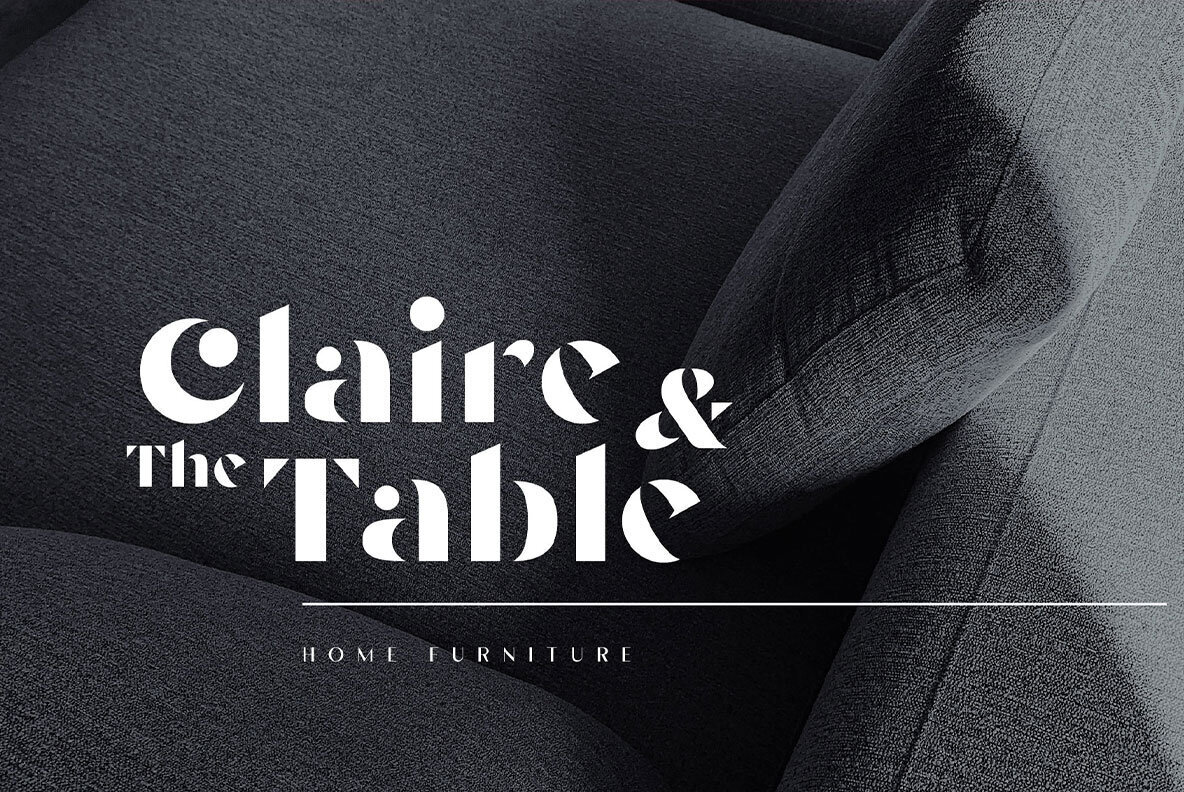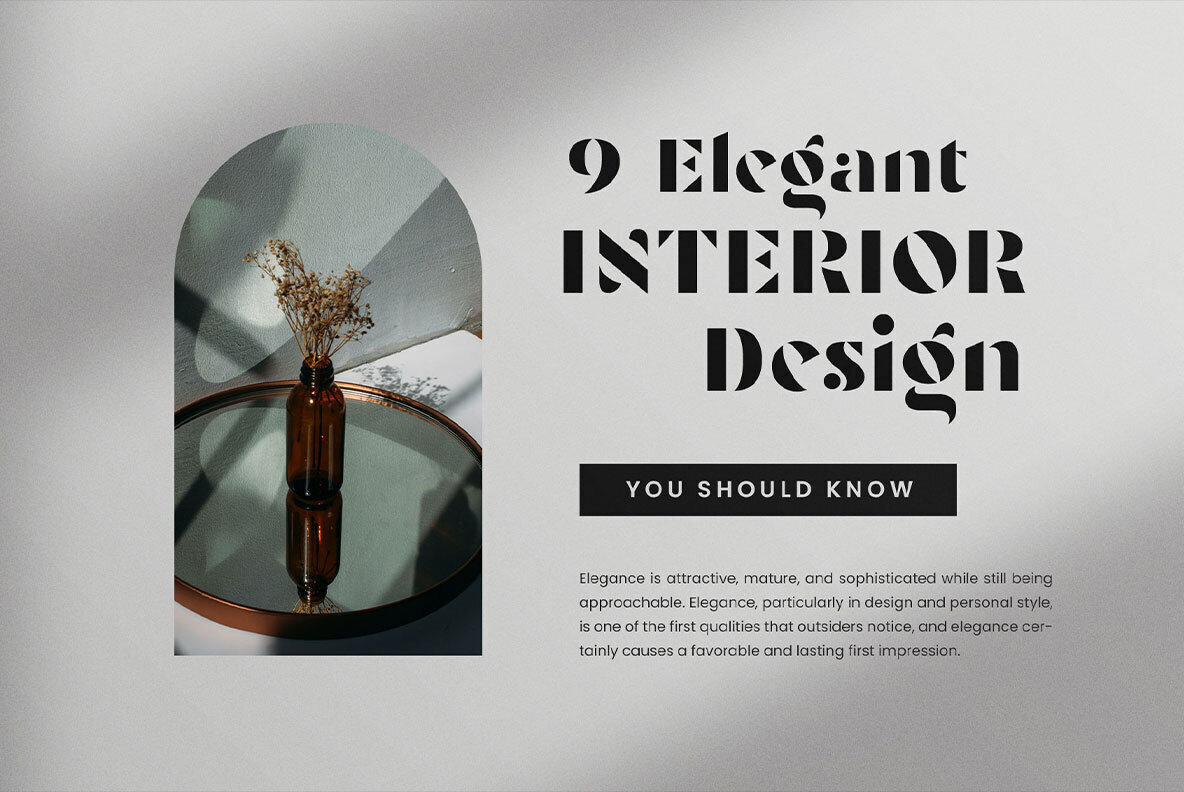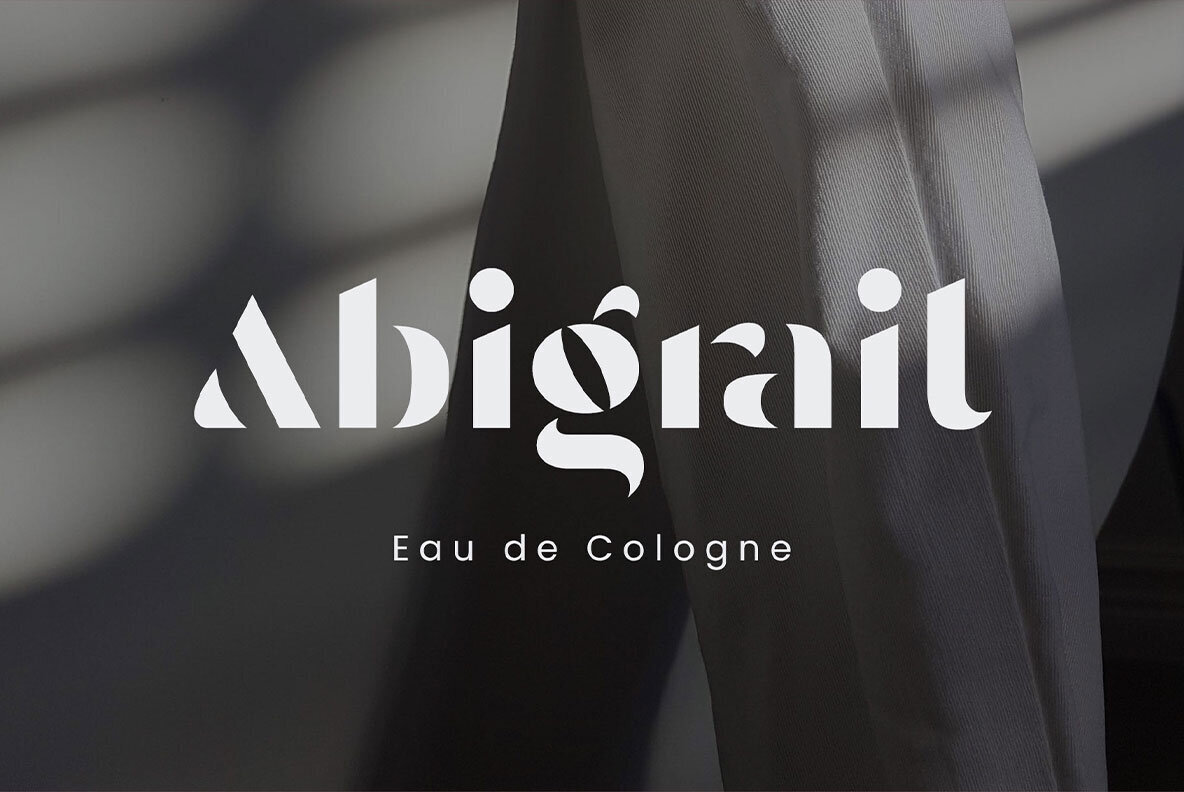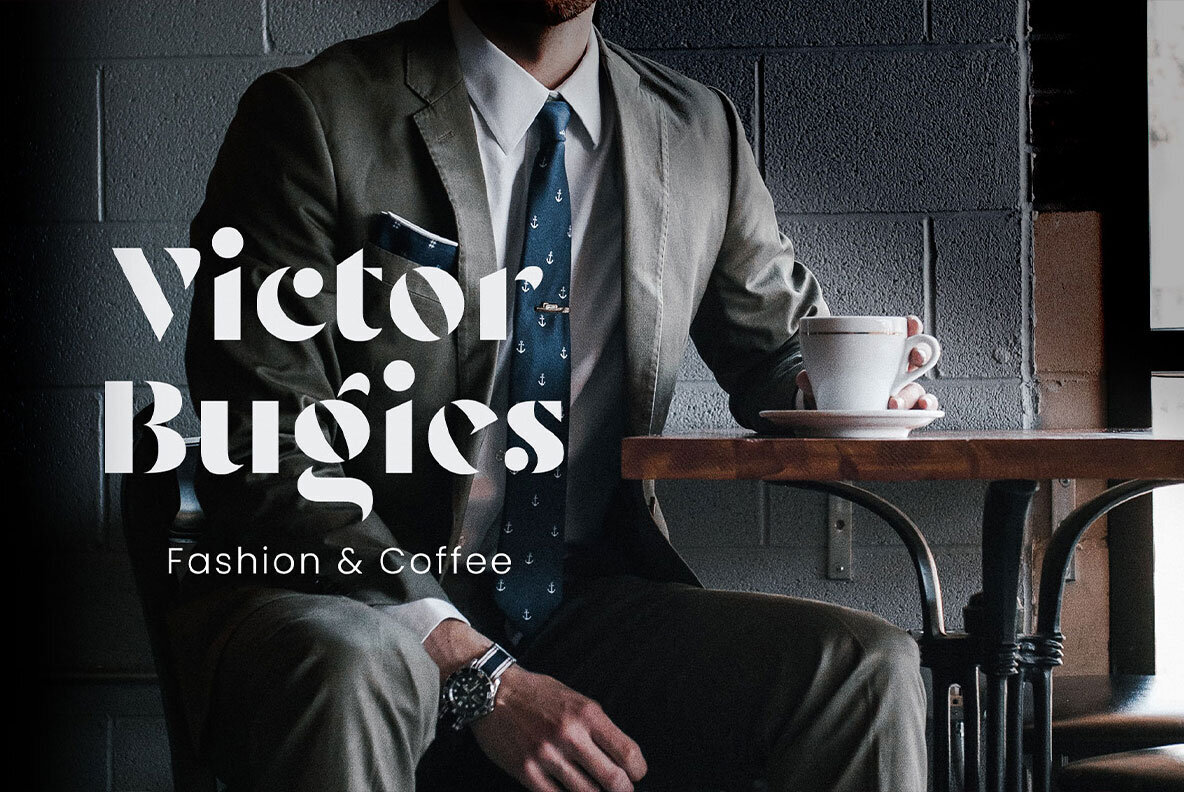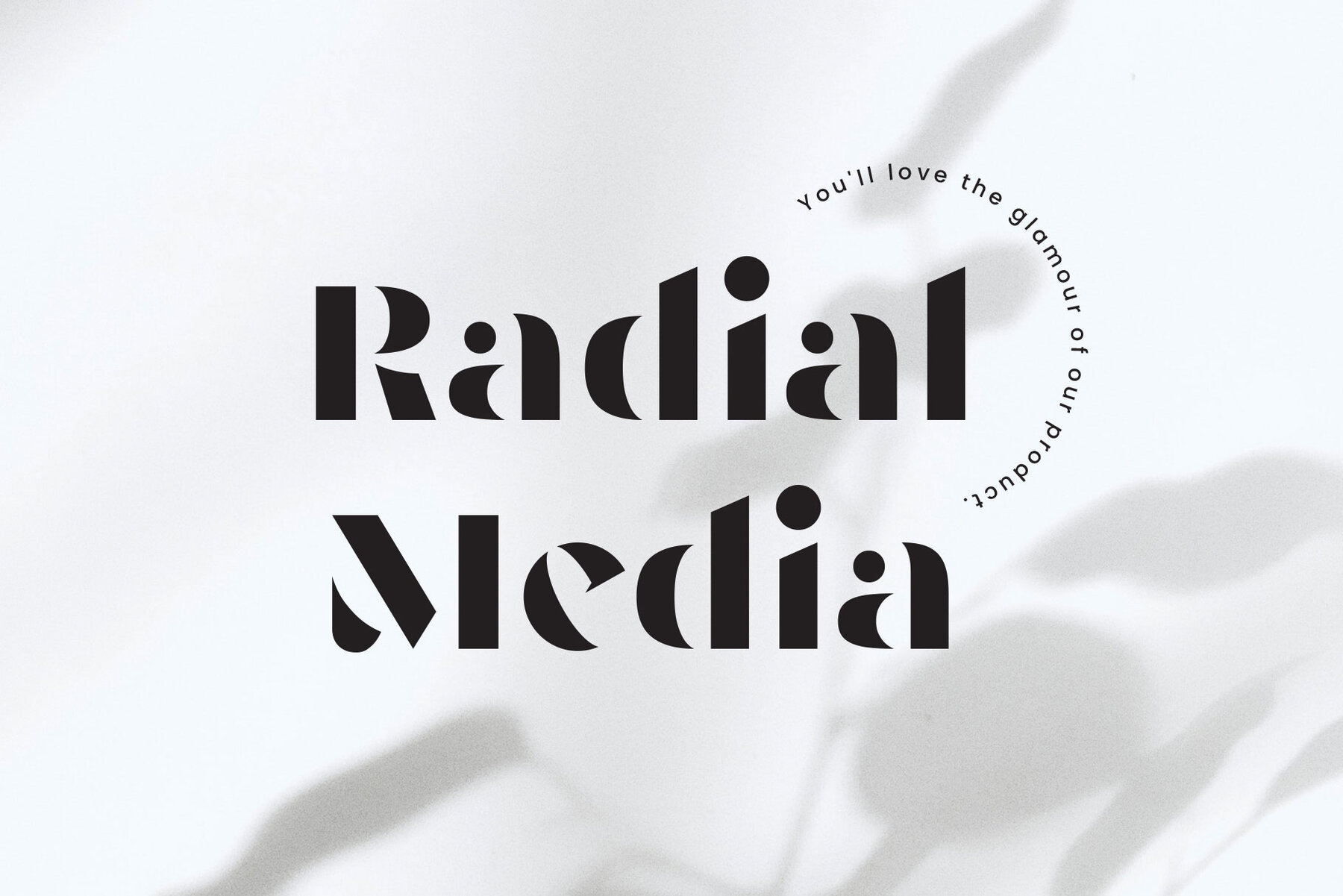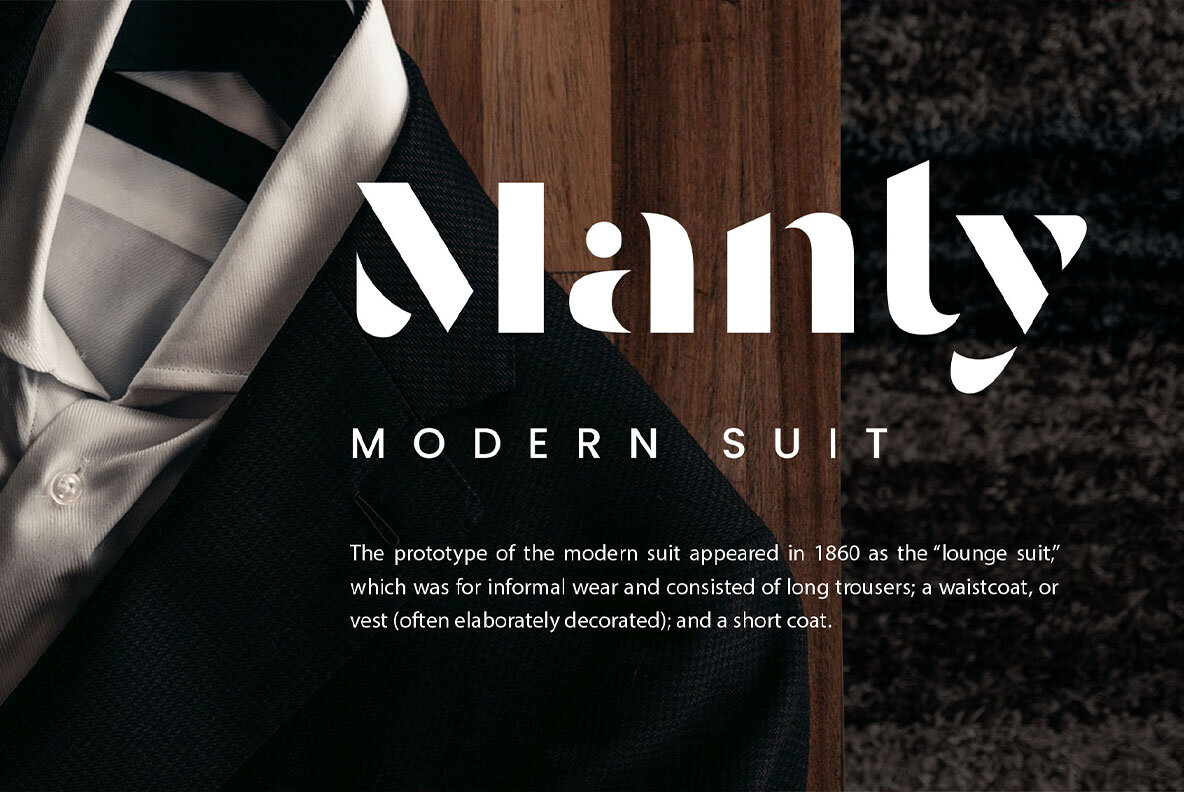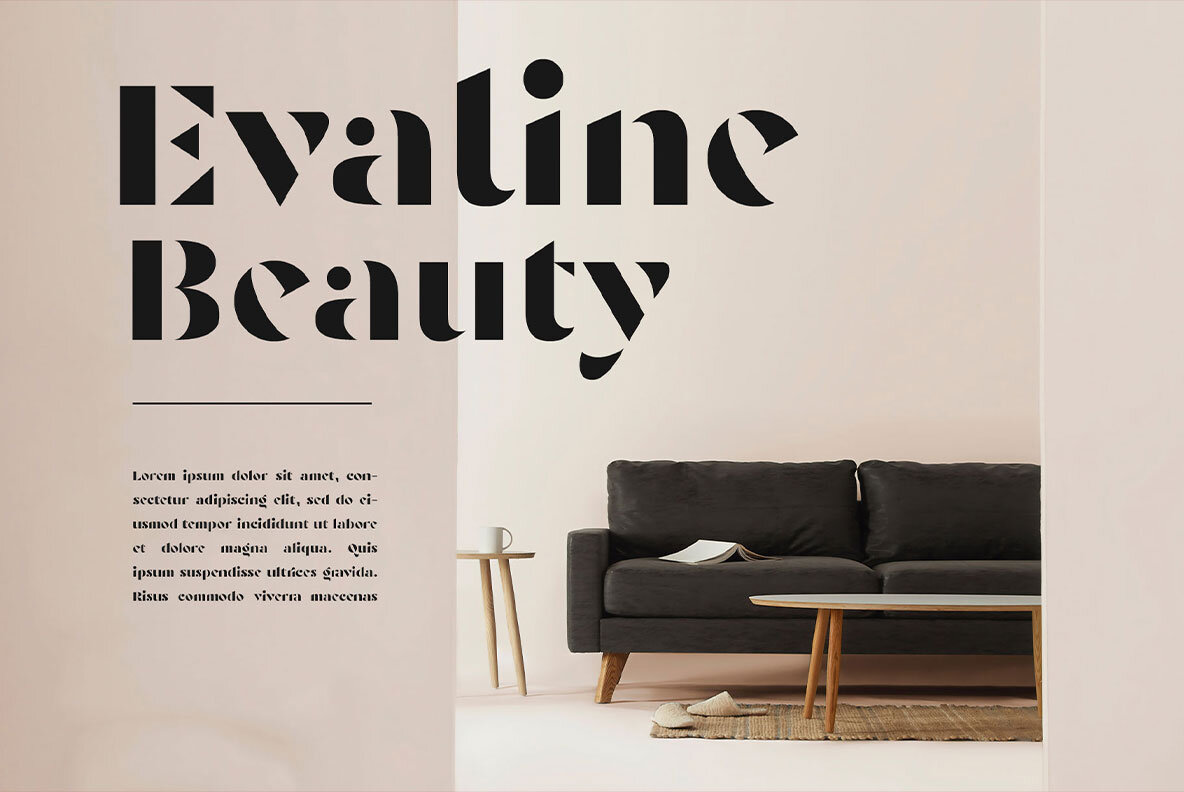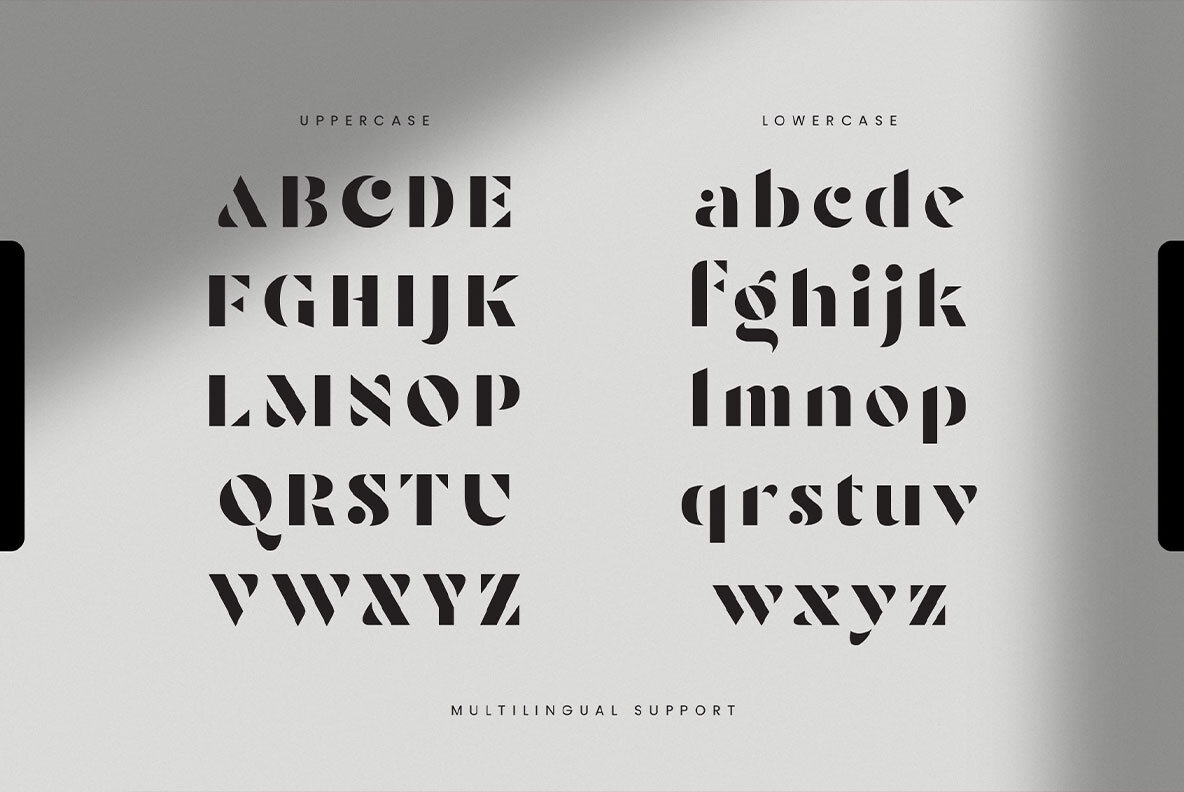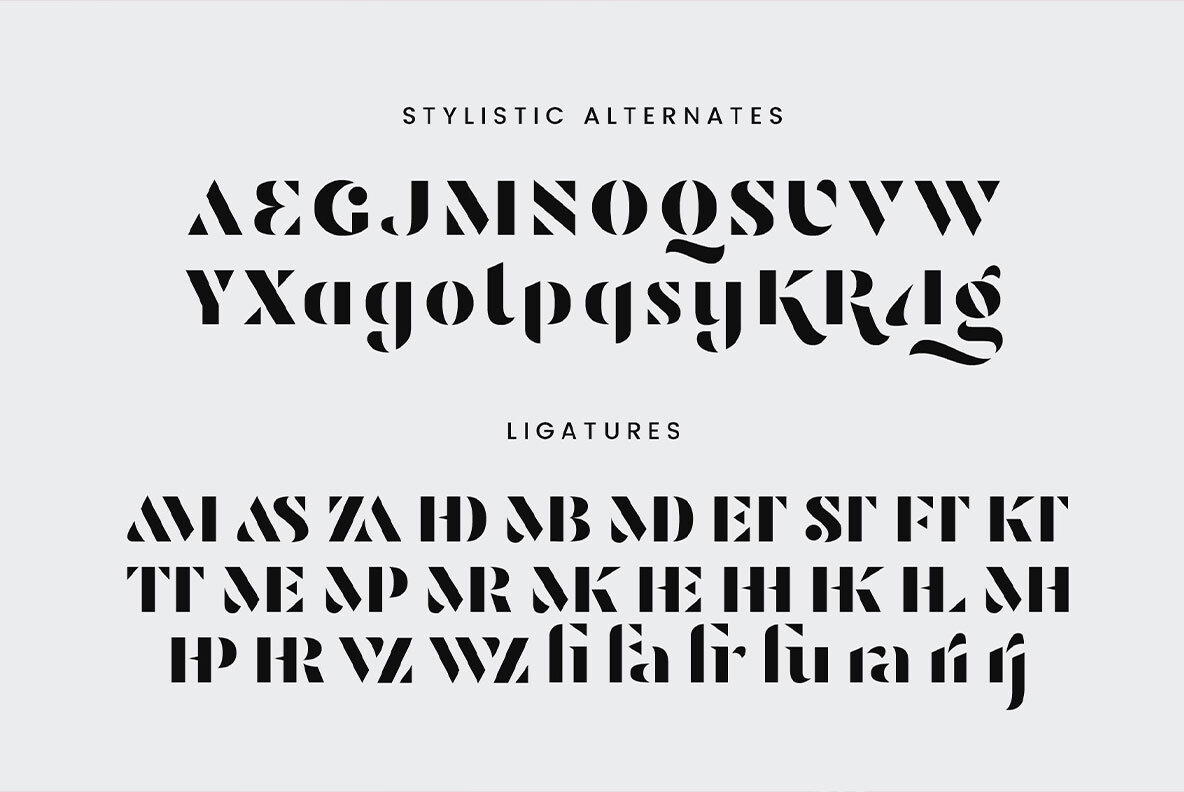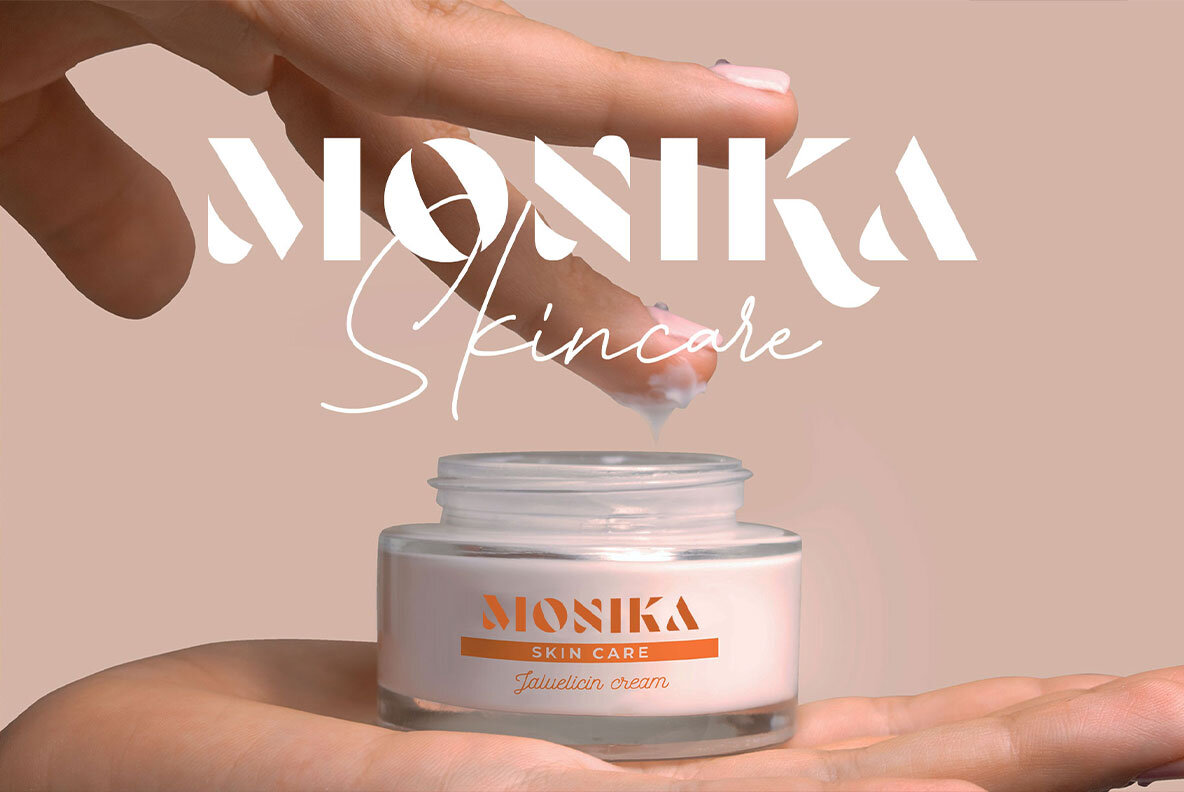
Granys Font
Granys Regular
Granys is a sans serif in a stencil style. Made by paying attention to the distinctive elements of each letter, then eliminating the secondary parts and only highlighting the main elements of the letter so that it looks minimalist and elegant.
Granys has sweet characteristics, simple, luxurious, and classy so it is very suitable for displays, logos, logotypes, branding, titles, short quotes, and so on.
This sans-stencil font is also equipped with alternates characters to sweeten your design, and also complete with unique ligatures.